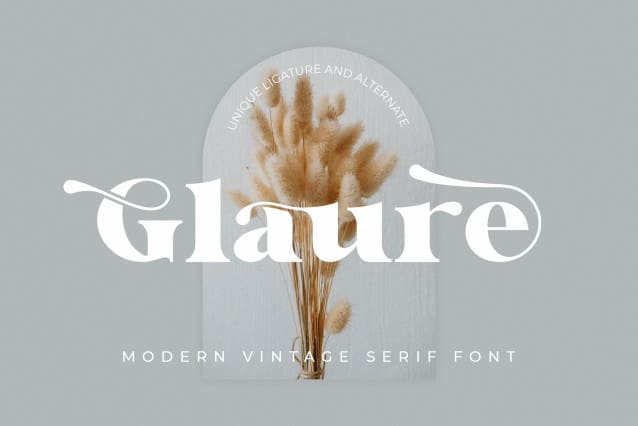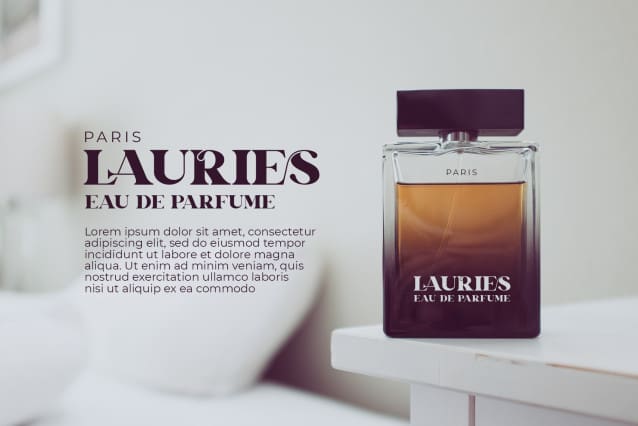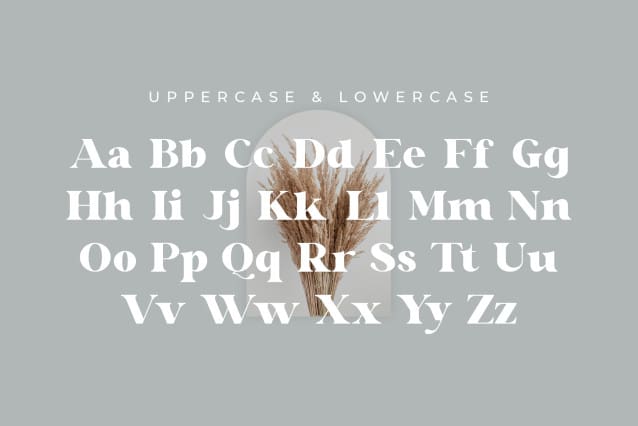
Glaure Serif Font
Glaure Serif Font is a balanced, smooth, elegant and stylish serif font. He has a beautiful character. It fits perfectly with invitation card designs, company logos, movie titles, movie names, business cards, book titles, brand names and various other designs. Glaure Vintage Serif is a subtle serif font that exudes sophistication and elegance. Its stylish alternations and ligatures make this font the perfect partner for any project.
Designer Name: SlideShoot